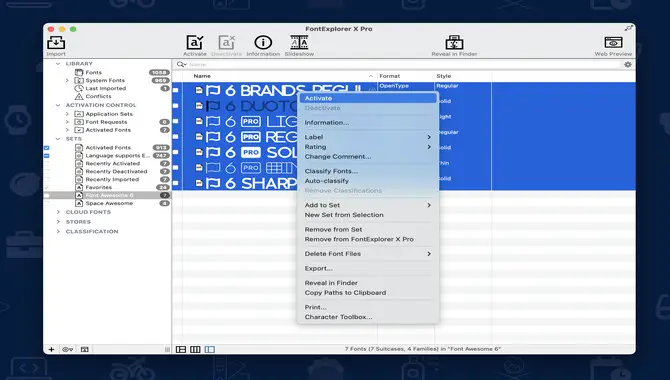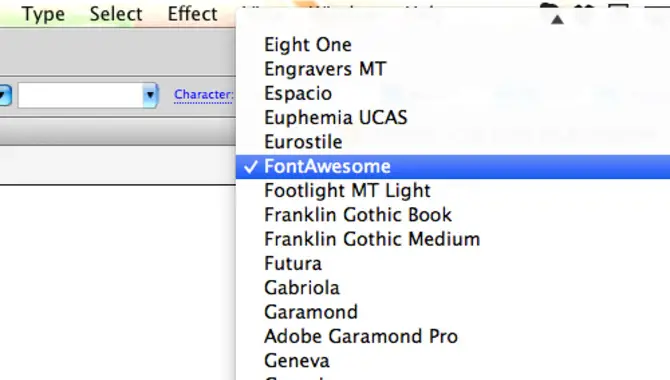
Font Awesome is a versatile and widely used icon toolkit that offers a vast collection of vector icons and logos for digital products.
It can be customized to fit any color or size requirement and is available in both free and paid versions. It’s an excellent tool for designing websites, mobile apps, and other digital products. In today’s digital age, design is crucial in attracting and retaining an audience. But with so many design elements, selecting the right icons to upgrade your design can be overwhelming.
This is where Font Awesome comes in. Font Awesome is a font and icon toolkit that allows you to add scalable vector icons to your website or app, making your design look sleek and professional. We will dive into Font Awesome, how it works, and why you should use their user icons for your next project.
How To Use Font Awesome User Icons In Your Design?
Include the stylesheet in your HTML file to incorporate Font Awesome user icons into your design. Then, choose an icon from the Font Awesome website and copy its class name. Paste the class name into an HTML element where you would like it to appear and utilize CSS to personalize its appearance and attributes. Font Awesome offers a wide range of user icons that can add extra customization and personalization to your design. Here’s how you can use Font Awesome user icons in your design:
With these simple steps, you can easily incorporate Font Awesome user icons into your design and enhance its visual appeal.
Why Use Font Awesome User Icons?
Font Awesome user icons can enhance a website design. Start by downloading or linking to the library, finding the appropriate class name for the desired icon in their documentation, and adding it to your HTML code. CSS customization allows for further personalization of size, colour, and other properties.
Font Awesome user icons make your website, or app look sleek and professional. Their wide range of user icons gives you the flexibility to choose an icon that fits your design and adds personalization. Font Awesome’s icons are vector-based, meaning they scale perfectly without losing quality. This makes them ideal for responsive design. Also, Font Awesome regularly updating its library allows you to access new icons and features without additional cost or effort.
Accessibility With Font Awesome User Icons
The library offers a vast collection of user icons, including fas fa-user, which you can easily incorporate into your app or website by copying its HTML code or CSS class name from the documentation and pasting it into your codebase. Customize the icon’s size, colour, and other properties using CSS without compromising its accessibility.
How Does Font Awesome Work?
Font Awesome is a library of scalable vector icons that can be customized to match your design. These icons use CSS and web fonts instead of image files, allowing faster loading times and easier customization. Adding an icon’s HTML code or CSS class name to your codebase can easily incorporate Font Awesome into your website or app design.